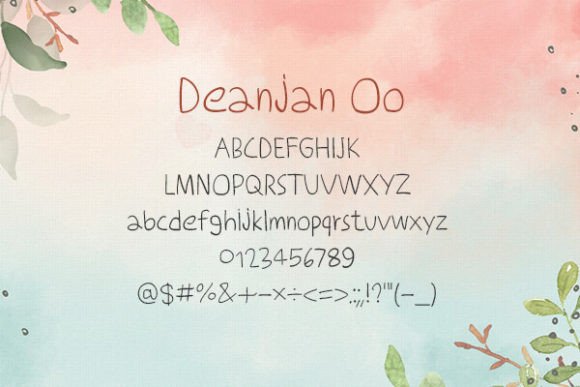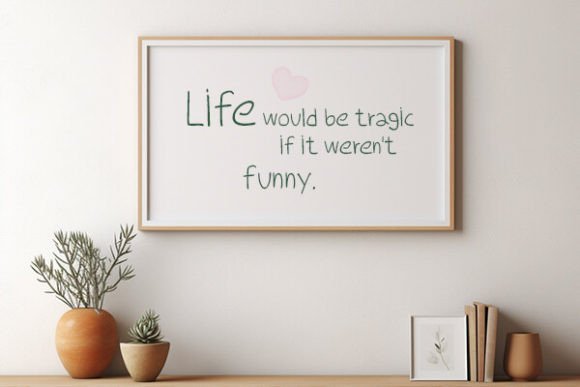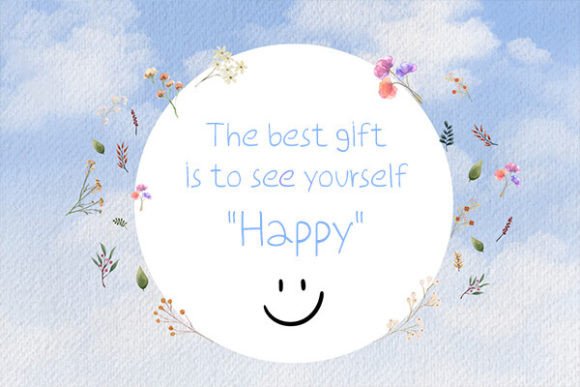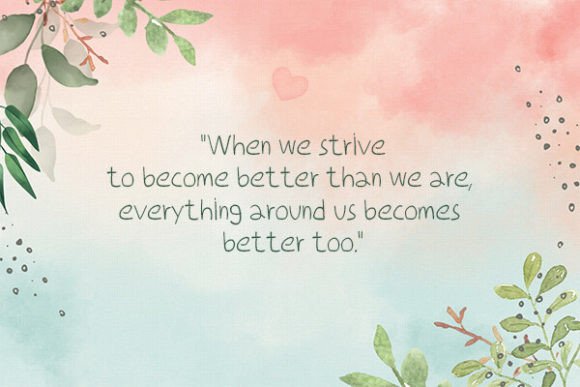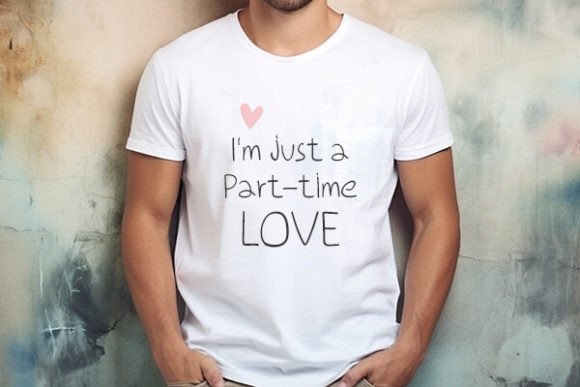
Introducing Deanjan Oo Font: The Playful Sans Serif for Your Fun Projects
Are you a designer or crafter looking for a font that adds a touch of playfulness and cuteness to your creative designs? Look no further than Deanjan Oo Font! This delightful sans serif font is designed to bring a smile to your face and a dash of fun to your projects.
The Design Behind Deanjan Oo
Deanjan Oo Font is crafted with a focus on simplicity and playfulness, making it perfect for a wide range of applications, from digital media to print materials. Its sans serif design ensures that your text remains clear and legible, while its cute and bubbly style adds a layer of personality to your work.
Key Features of Deanjan Oo Font
- Cute and Playful Style: Deanjan Oo Font boasts a charming and whimsical design that’s sure to capture the attention of your audience.
- Sans Serif Design: The clean lines and simple shapes of this font ensure that it remains highly legible, even at smaller sizes.
- Versatility: Whether you’re working on a digital project, a print design, or a craft, Deanjan Oo Font adapts seamlessly to different mediums.
- Ease of Use: This font is easy to read and works well for both headings and body text, making it a versatile addition to your font library.
Perfect for Fun Projects and Creative Designs
Deanjan Oo Font is more than just a typeface; it’s a creative tool that can help you infuse your projects with personality and charm. Whether you’re designing:
- Digital Media: Add a playful touch to your social media posts, website headers, or digital advertisements.
- Print Materials: Make your brochures, posters, and flyers stand out with a font that’s both fun and professional.
- Crafts and DIY Projects: Use Deanjan Oo Font to add personalized touches to your handmade crafts, such as journals, cards, or custom apparel.
Why Choose Deanjan Oo Font?
In a world where design trends are constantly evolving, having a font that can add a unique touch to your work is invaluable. Deanjan Oo Font offers:
- Uniqueness: Stand out from the crowd with a font that’s not commonly used, giving your designs a fresh and original look.
- Emotional Connection: The playful nature of Deanjan Oo Font can help create an emotional connection with your audience, making your message more memorable.
- Professionalism: Despite its playful style, Deanjan Oo Font maintains a level of professionalism that’s suitable for a wide range of projects.
| Font Name | Deanjan Oo Font |
| Author | TanoiCartoonist |
Deanjan Oo Font is a delightful addition to any designer’s or crafter’s toolkit. Its cute and playful sans serif style, combined with its versatility and ease of use, makes it the perfect choice for fun projects and creative designs. Whether you’re looking to add a touch of whimsy to your digital media, print materials, or crafts, Deanjan Oo Font is sure to bring your designs to life.